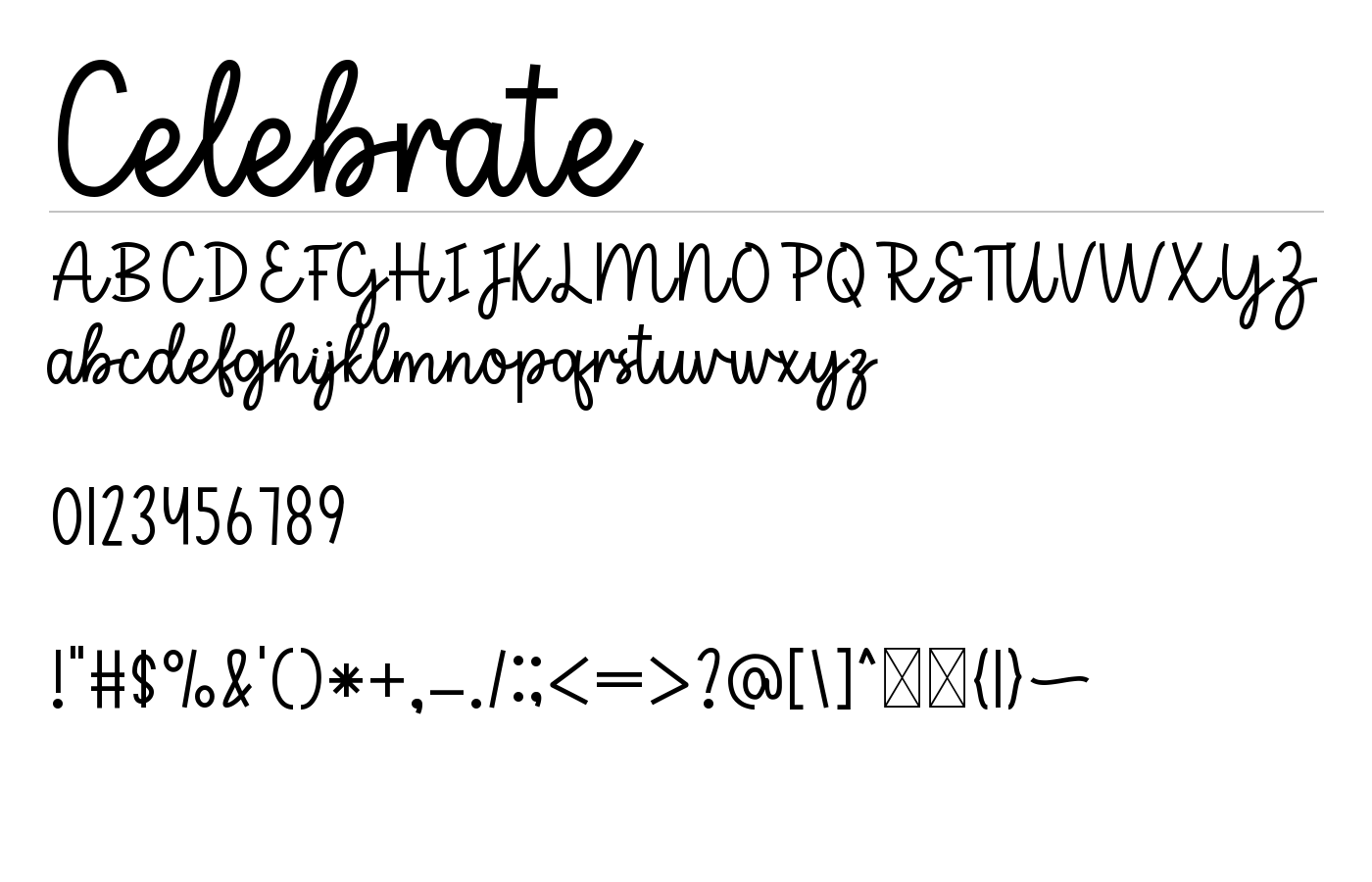
Celebrate is a playful and casual script font with a smooth, handwritten feel that combines clean, rounded letterforms with a slightly whimsical touch. Its moderate weight and open spacing make it highly readable, ideal for adding a friendly and inviting vibe to invitations, casual branding, and creative projects. This font works well for designs needing a personal, joyful tone without sacrificing clarity.
Celebrate Font
About Celebrate Font